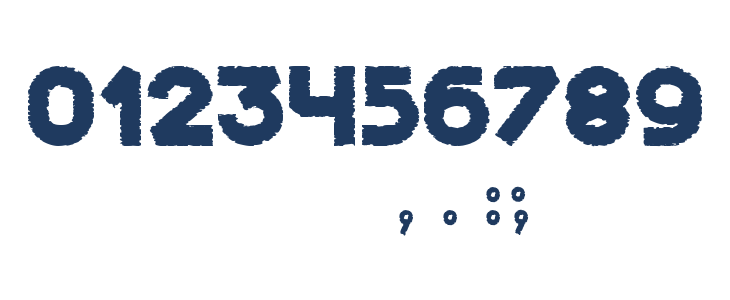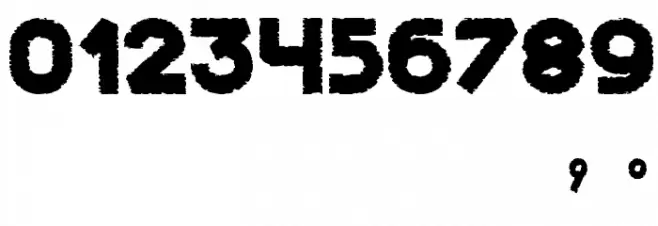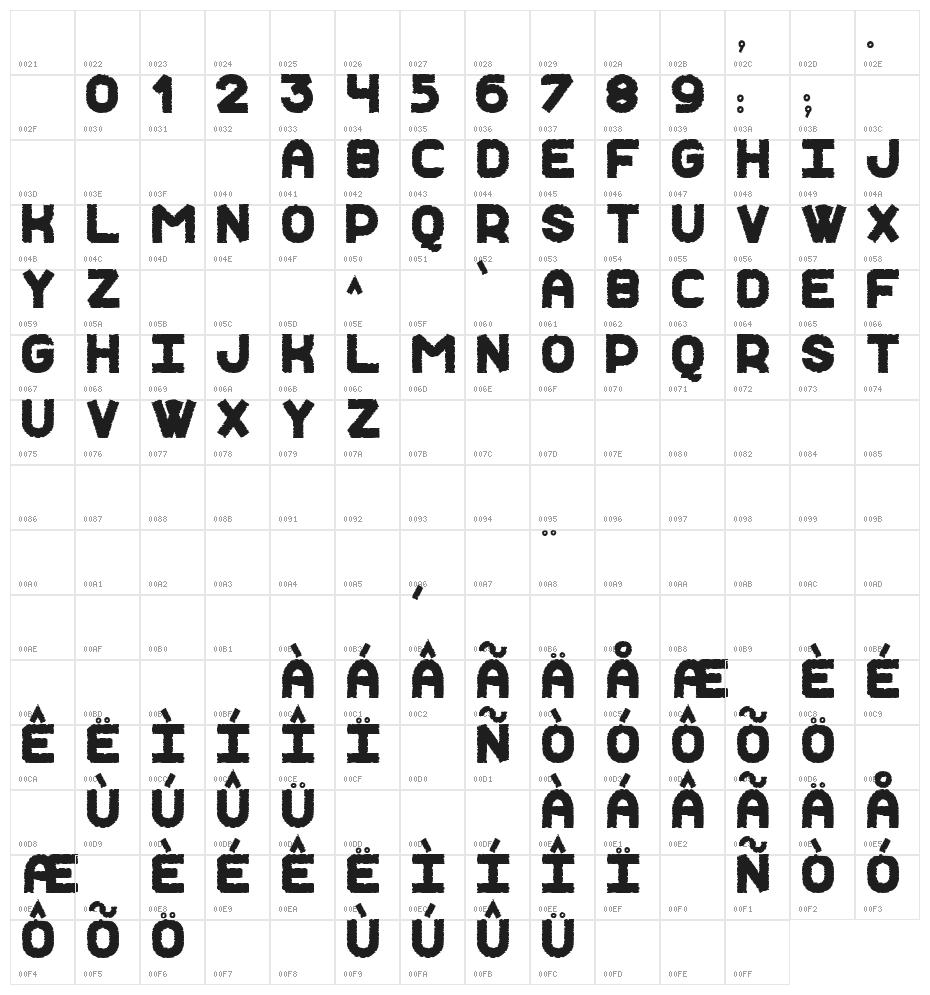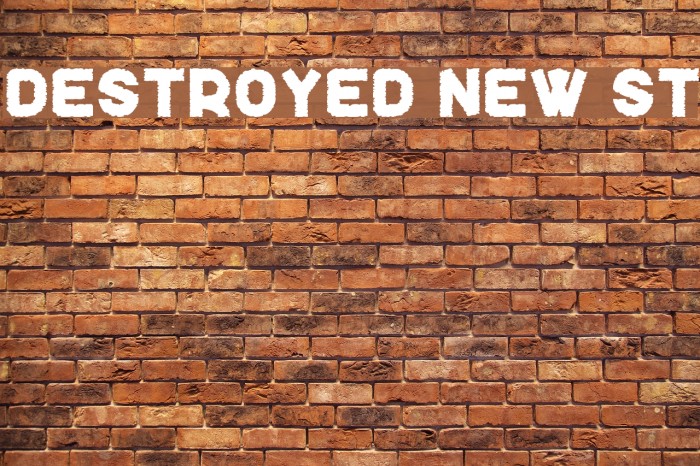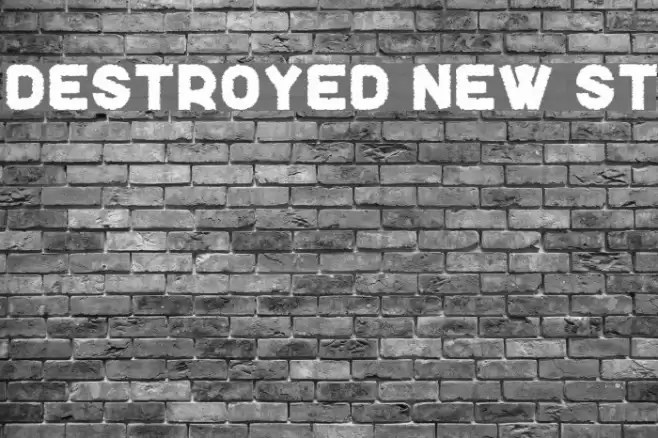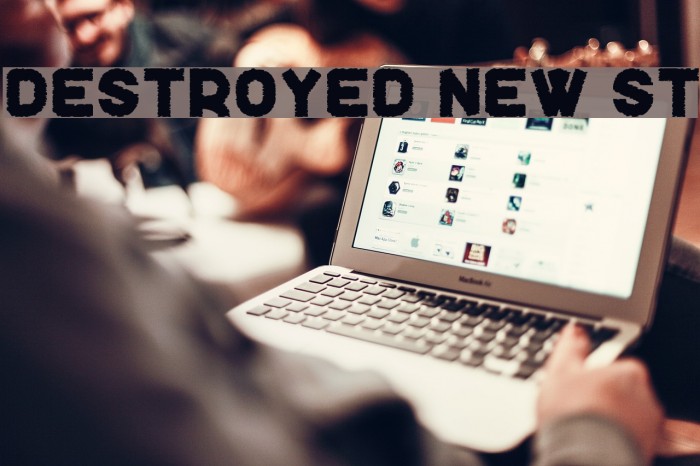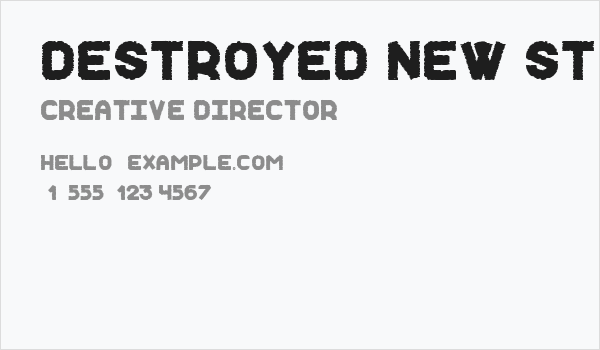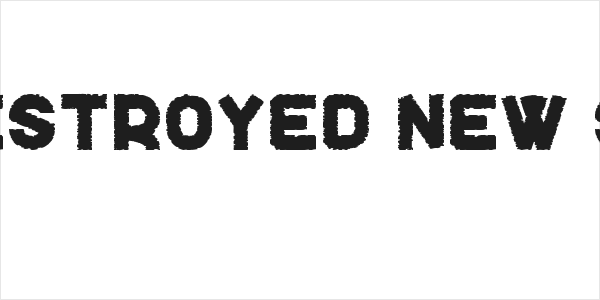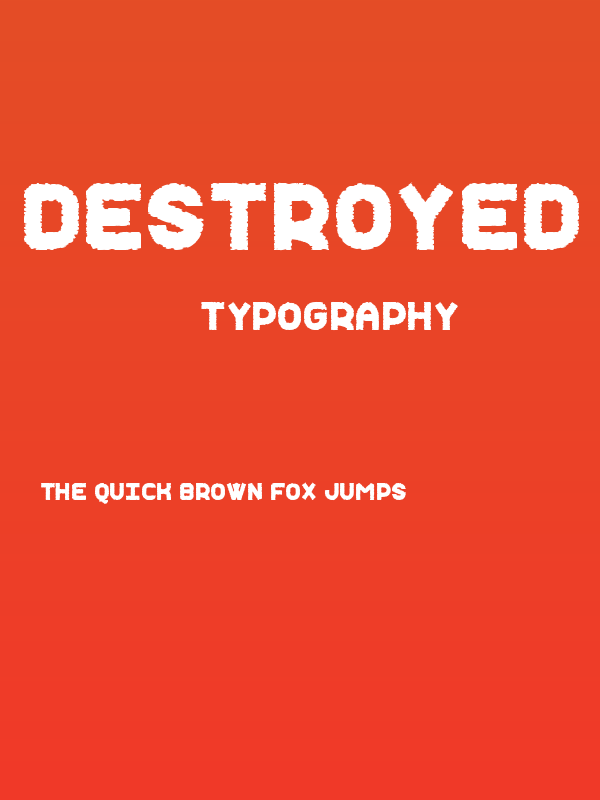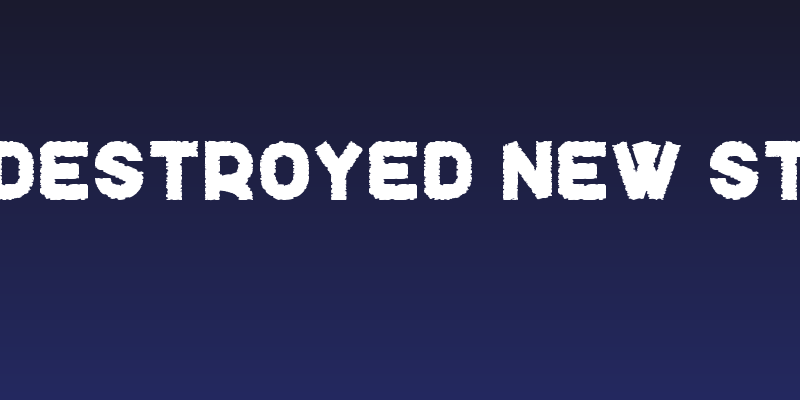
Destroyed New St Font
Destroyed New St Description
This font features a distressed, textured appearance that gives it a rugged and worn look. The characters are bold and have a rough, uneven edge, reminiscent of letters that have been stamped or printed with a worn-out ink pad. The uppercase and lowercase letters maintain a consistent style, with the uppercase being slightly more pronounced. Numbers and special characters follow the same distressed aesthetic, making the font cohesive across all characters. This style is ideal for projects that require a vintage or grunge feel, adding character and a sense of history to the text.
| Proposed Projects | Ideal for vintage posters, grunge-themed designs, album covers, and branding that requires a rustic or worn look. |